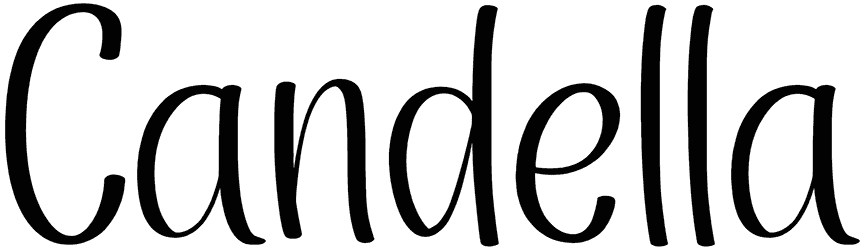
Candella Font
The whole point of setting a handwritten font like this one on a creative design is to leave a lasting impact on a lot of followers with different tastes. This script font is a great choice for many designs, like a birthday party Instagram post. Give the Candella font a chance and test it for your layout to convey an elegant and minimal vibe to your viewers.